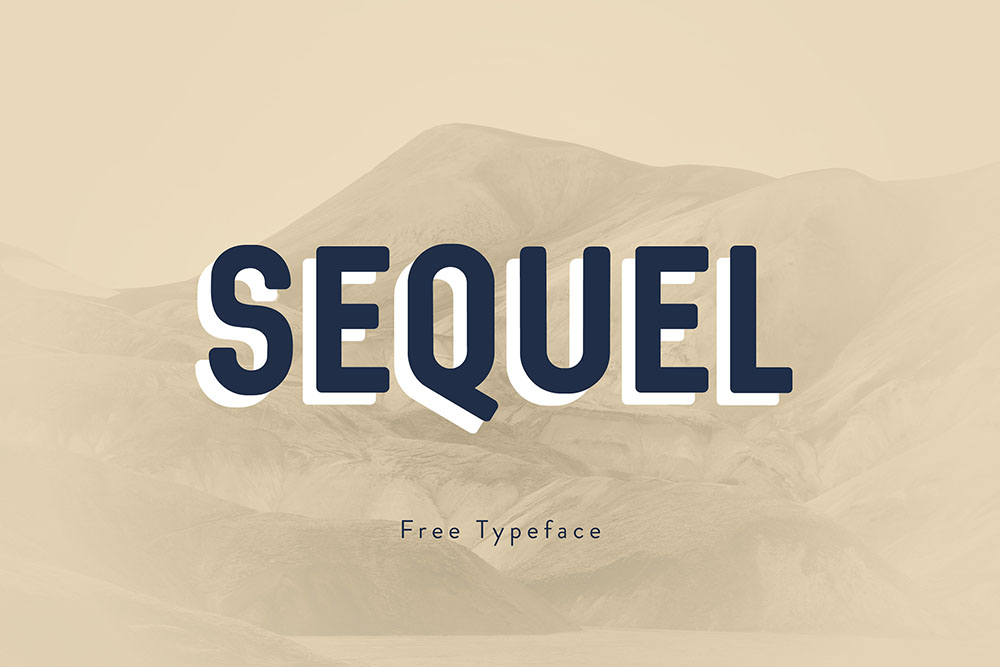
Sequel Font – Free Smooth Headline Font
Sequel is a smooth headline font made for Movies or Logos. It is clean, modern and bold font for 100% free commercial use.It is multifunctional typeface for modern feel design. Thanks very much to Philip Trautmann.
Type: Sans Serif